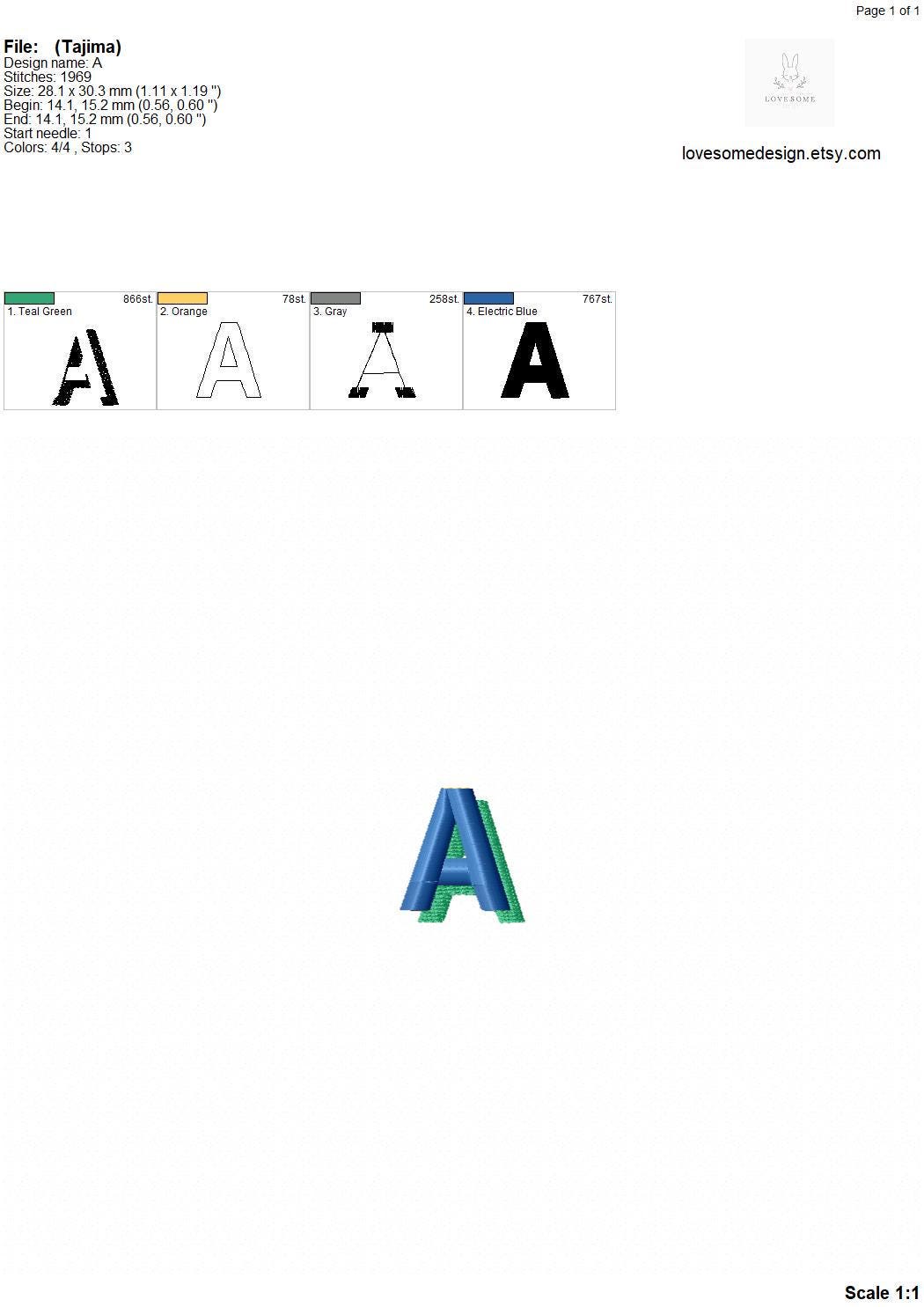
Block Shadow Puff 1.25inch Font A-Z Machine Embroidery Block Monogram Letters, Puff 3D Foam Embroidery Font | Lovesome Design
This listing features a machine embroidery font set for puff stitch embroidery which includes embroidery files of 26 uppercase letters in 1.25inch size. (For the whole set, pls see the listing images.)